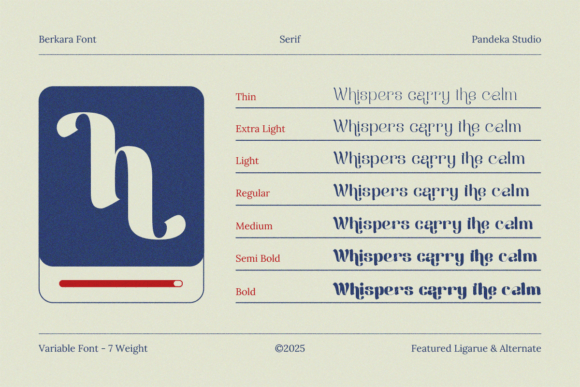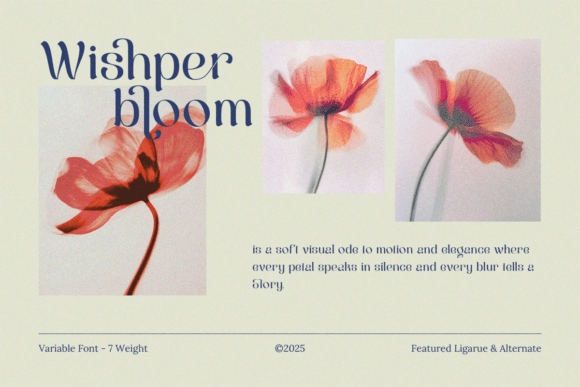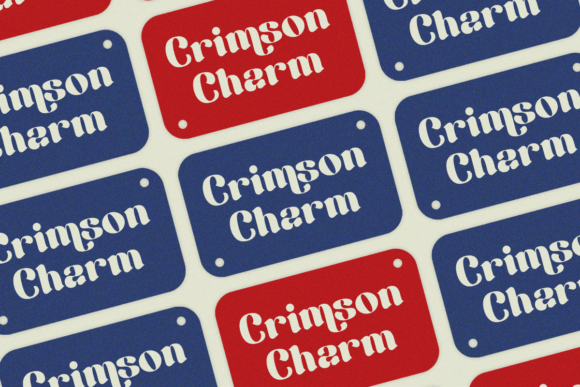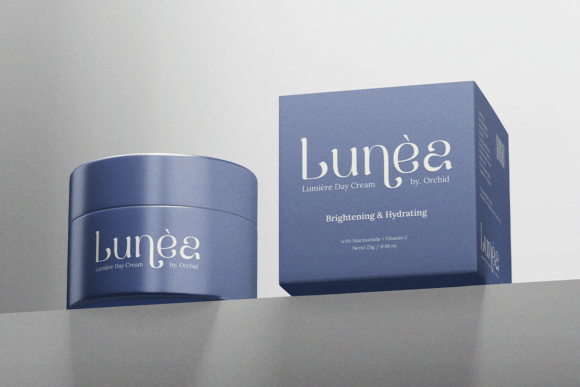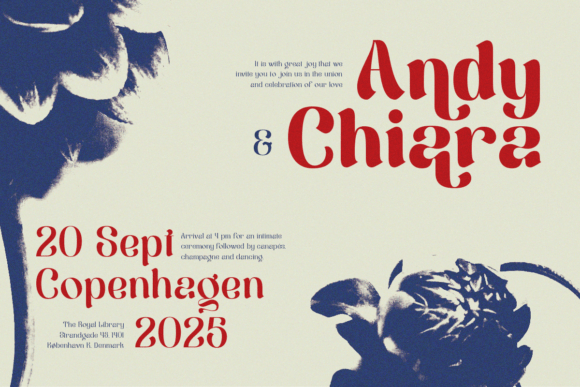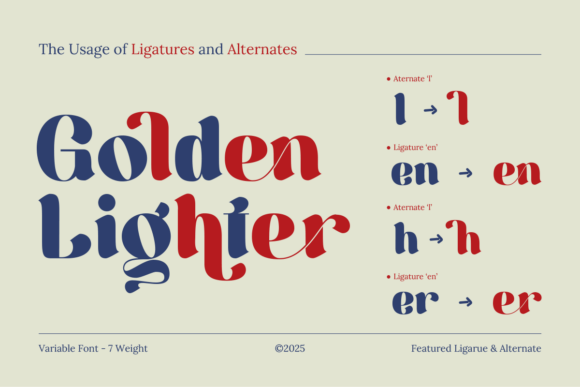
Berkara Font: Elevate Your Design with a Vintage-Inspired Serif Font Family
In the world of typography, a font can make or break a design. For designers and crafters looking for a stylish and elegant serif font, Berkara is an excellent choice. This versatile font family offers a modern twist on vintage-inspired serifs, making it perfect for a wide range of creative applications. With 7 styles to choose from, Berkara is sure to elevate your design to the next level.
What is Berkara Font?
Berkara is a carefully crafted serif font family that combines the elegance of traditional typography with a modern edge. Its refined ligatures and graceful curves make it an ideal choice for designers seeking to create stylish typography in luxury branding, fashion logos, editorial layouts, premium packaging, and sophisticated display design.
Key Features of Berkara Font
- 7 Versatile Styles: Berkara offers 7 styles to choose from: Thin, Extra Light, Light, Regular, Medium, Semi Bold, and Bold. This range of styles provides flexibility for a wide range of creative applications, from elegant headlines to body text.
- Vintage-Inspired with a Modern Twist: Berkara’s serif design is inspired by traditional typography, but with a modern edge that makes it perfect for contemporary designs.
- Refined Ligatures and Graceful Curves: Berkara’s refined ligatures and graceful curves add an extra layer of elegance to your typography, making it perfect for luxury branding, fashion logos, and editorial layouts.
Use Cases for Berkara Font
Berkara’s versatility makes it suitable for a wide range of creative applications, including:
- Luxury Branding: Berkara’s elegant design makes it perfect for luxury brands looking to create a sophisticated and high-end visual identity.
- Fashion Logos: Berkara’s refined ligatures and graceful curves make it an excellent choice for fashion logos that require a touch of elegance and sophistication.
- Editorial Layouts: Berkara’s serif design makes it perfect for editorial layouts, such as magazines, newspapers, and books, where readability and elegance are paramount.
- Premium Packaging: Berkara’s luxurious design makes it suitable for premium packaging, such as high-end product labels and packaging materials.
- Sophisticated Display Design: Berkara’s bold styles make it perfect for display design, such as headlines, titles, and signage.
Why Choose Berkara Font?
With so many fonts available, why choose Berkara? Here are a few reasons why Berkara stands out:
- Unique Design: Berkara’s vintage-inspired design with a modern twist sets it apart from other serif fonts.
- Versatility: Berkara’s 7 styles provide flexibility for a wide range of creative applications.
- Elegance: Berkara’s refined ligatures and graceful curves add an extra layer of elegance to your typography.
In conclusion, Berkara is a stylish and elegant serif font family that offers a modern twist on vintage-inspired typography. With 7 versatile styles, refined ligatures, and graceful curves, Berkara is perfect for designers and crafters looking to elevate their design to the next level. Whether you’re working on luxury branding, fashion logos, editorial layouts, premium packaging, or sophisticated display design, Berkara is an excellent choice.